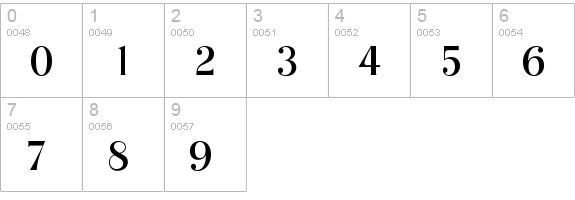
Nashville-Regular is the standard, neutral variant in the Nashville typeface family \xE2\x80\x94 well suited to general body text, paragraphs, and standard typographic work.
Nashville-Regular font is a versatile and modern typeface that exudes simplicity and elegance. With its clean lines and balanced proportions, this font is perfect for a wide range of design projects. Whether you're creating a logo, a poster, a website, or any other graphic design work, Nashville-Regular font will add a touch of sophistication to your work. The best part? Nashville-Regular font is available for free download at FontsMarket.com. You can easily access this high-quality font without any cost, making it a valuable addition to your font library. Embrace the timeless appeal of Nashville-Regular font in your projects and elevate your designs to the next level.